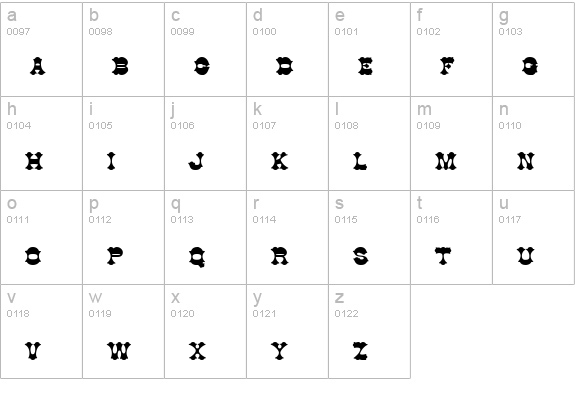
Cowboy Bold is a strong, high-contrast variant in the Cowboy typeface family \xE2\x80\x94 well suited to headlines, attention-grabbing titles, and strong calls-to-action.
Introducing Cowboy Bold font, a rugged and bold typeface inspired by the wild west and cowboy culture. This versatile font exudes strength and character, making it perfect for a wide range of design projects. Whether you're creating posters, logos, or branding materials, Cowboy Bold font will add a touch of adventure and authenticity to your designs. Best of all, Cowboy Bold font is completely free to download at FontsMarket.com. This means you can easily access this unique font and start using it in your projects right away. Don't miss out on the opportunity to add a touch of cowboy charm to your designs with Cowboy Bold font - download it now and let your creativity run wild!